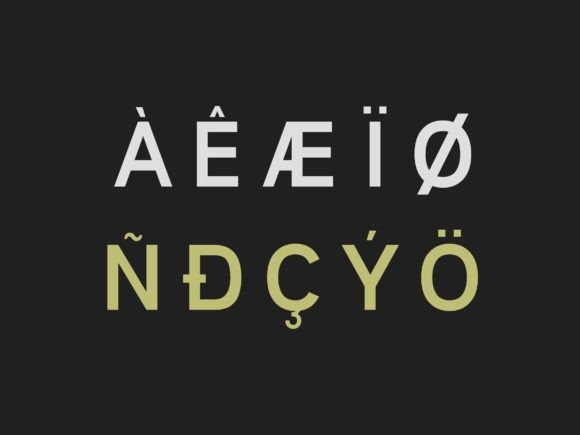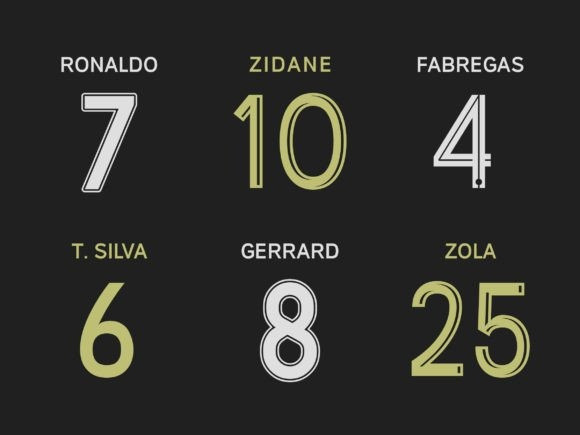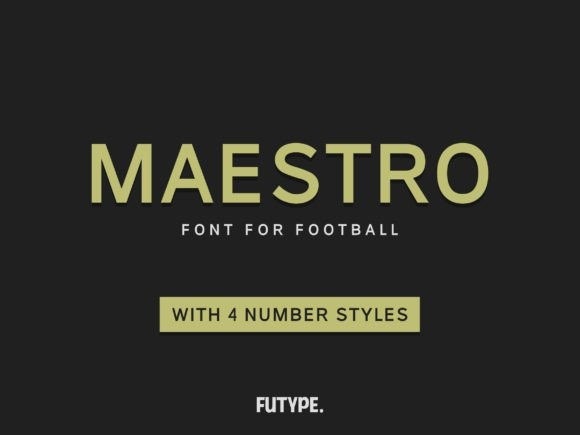
Maestro Font
Maestro Font is made for football/soccer or other sports jersey number. Using a sans serif font as a base also makes this font good for other purposes.